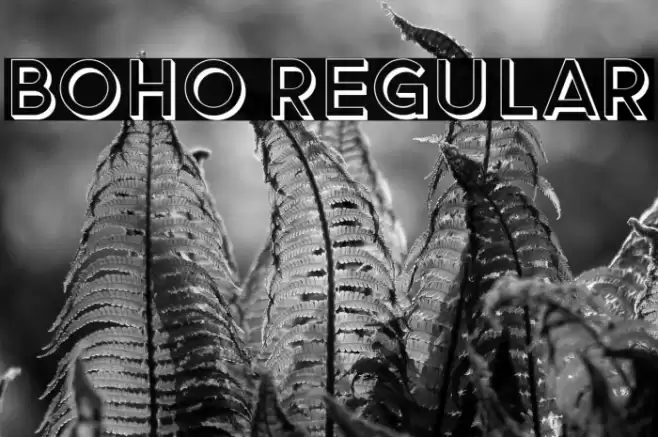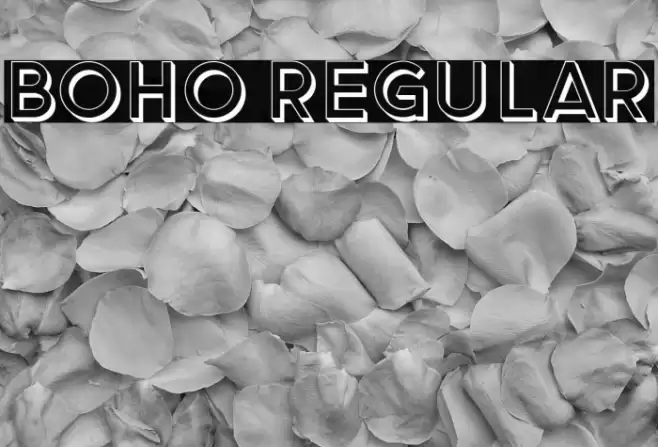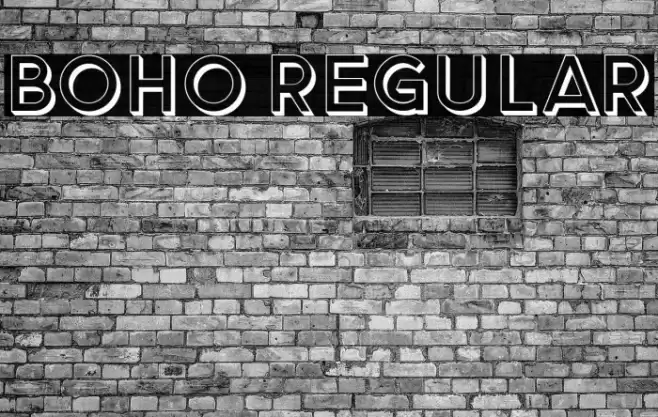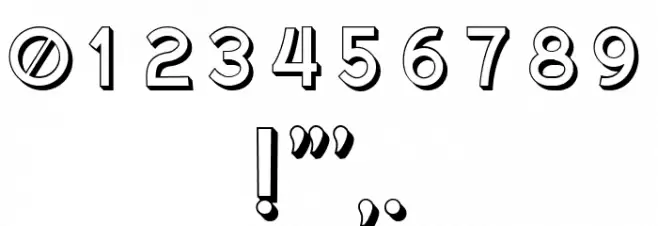
Boho Regular Font
Boho Regular Description
This font features a bold, geometric style with a distinct outline effect that gives it a three-dimensional appearance. The characters are uppercase and numerals, each with a consistent width and height, creating a uniform look. The design is clean and modern, with sharp angles and straight lines that convey a sense of strength and stability. The spacing between characters is normal, ensuring readability while maintaining the font's bold presence. The contrast in stroke thickness is low, as the outline effect is the primary visual feature, rather than varying line weights. This font is well-suited for projects that require a striking and contemporary aesthetic.
A bold, geometric font with a three-dimensional outline effect from Regular fonts.
- Proposed Projects: Ideal for logos, headlines, posters, and branding materials that need a modern and impactful look.